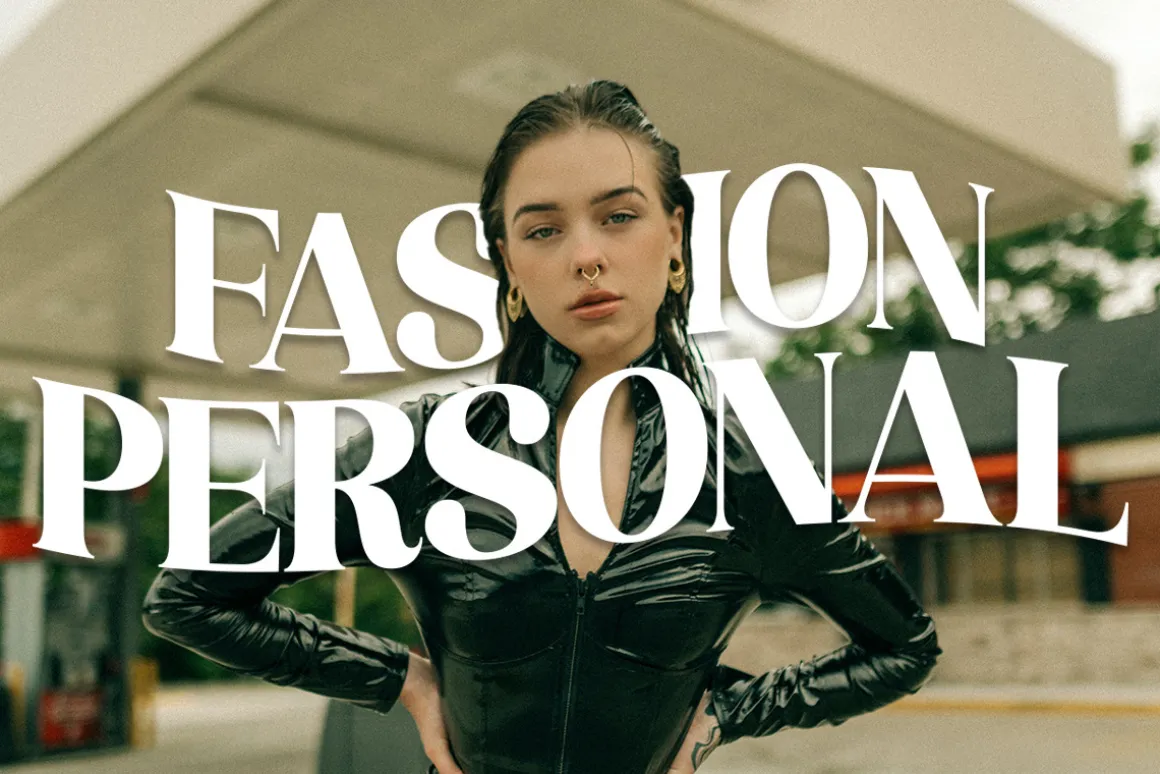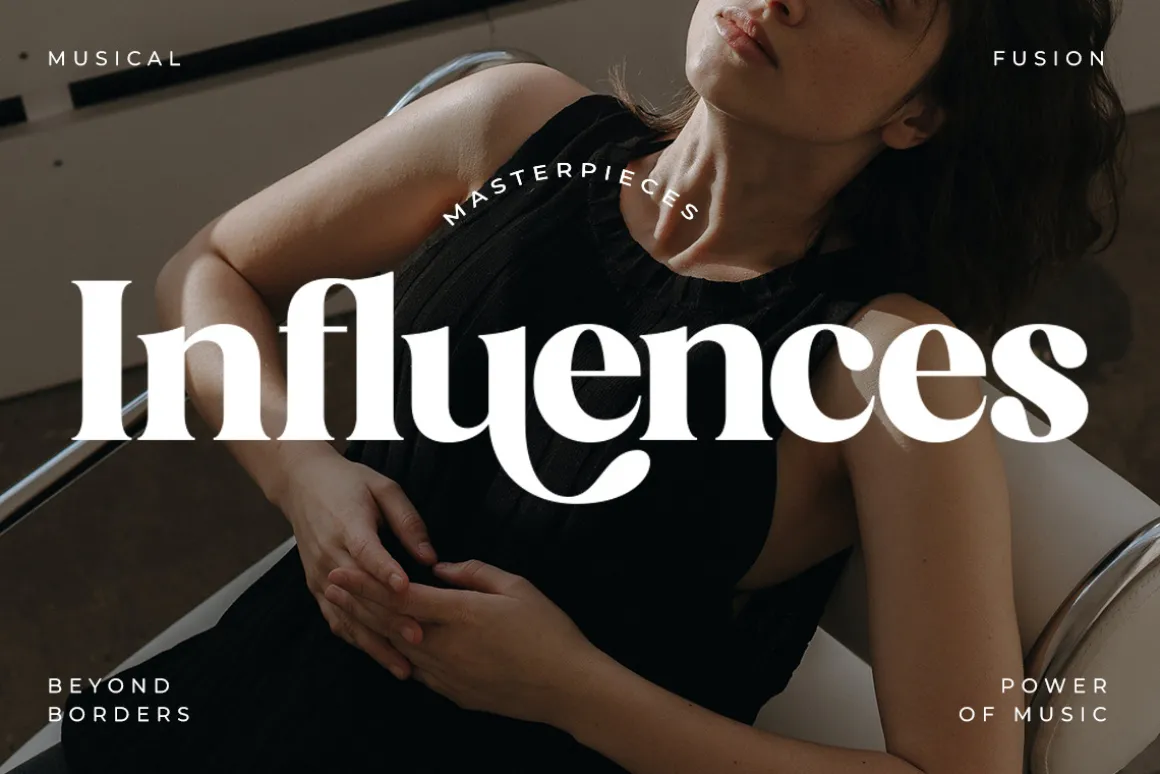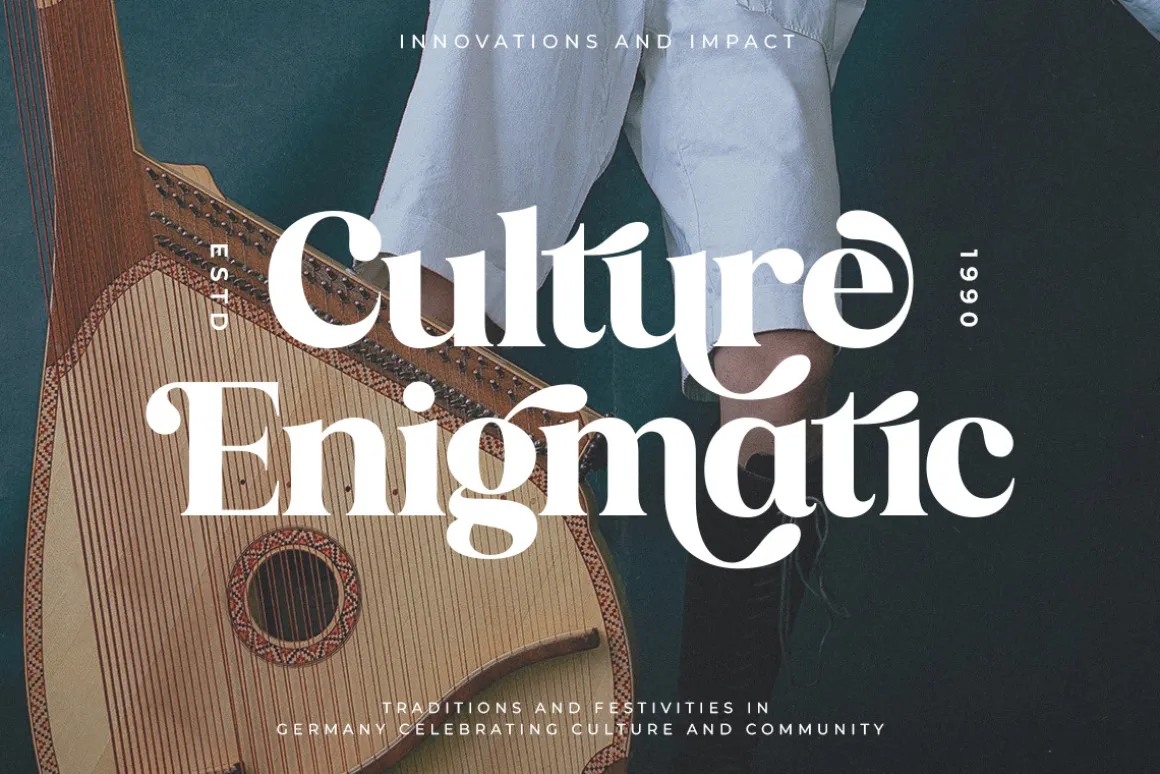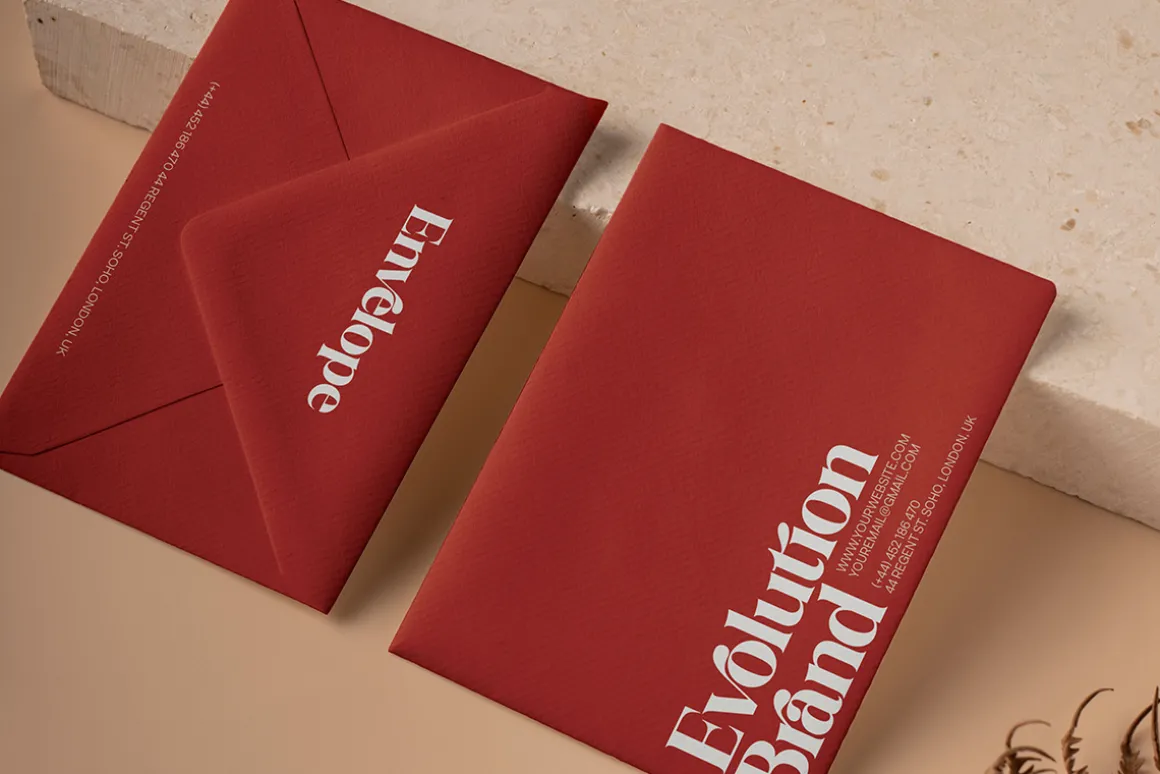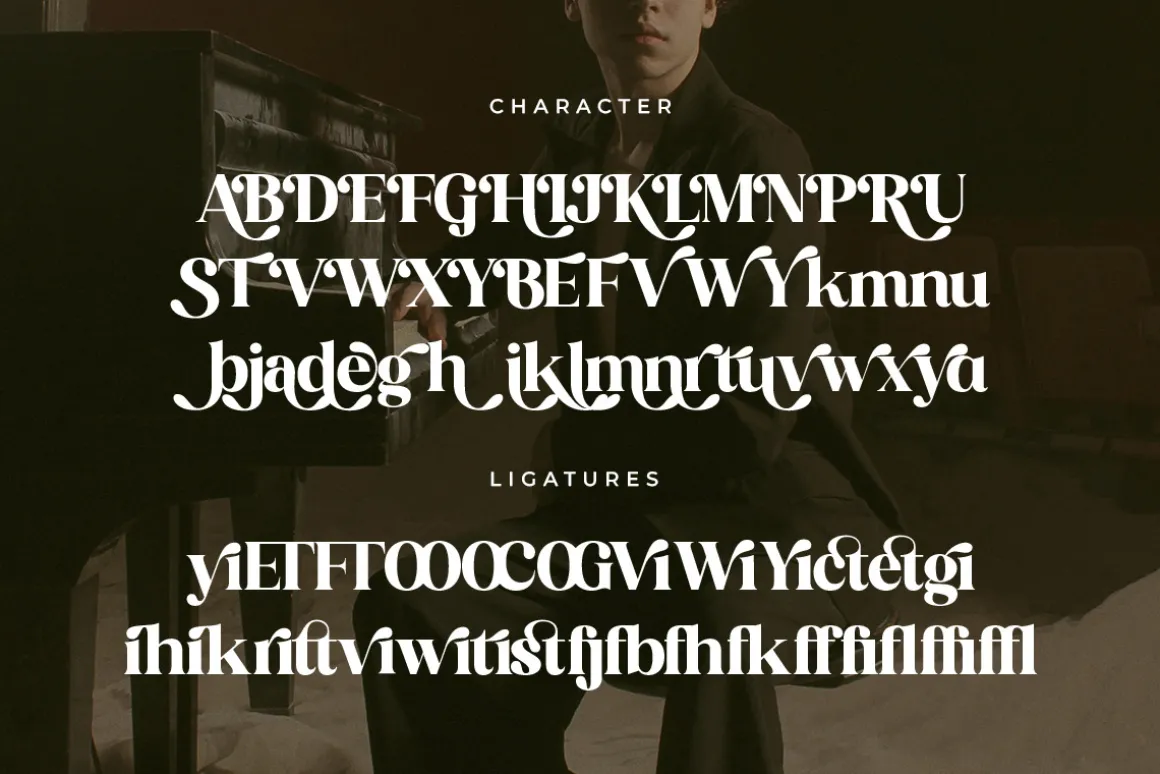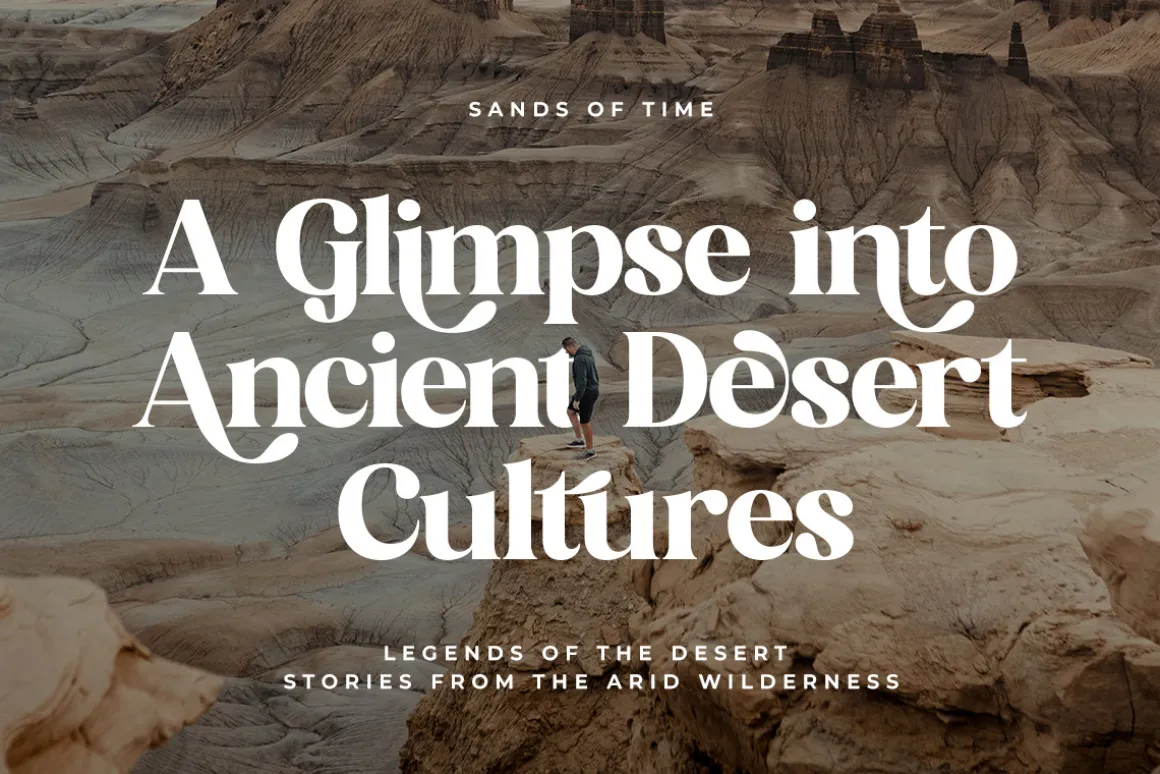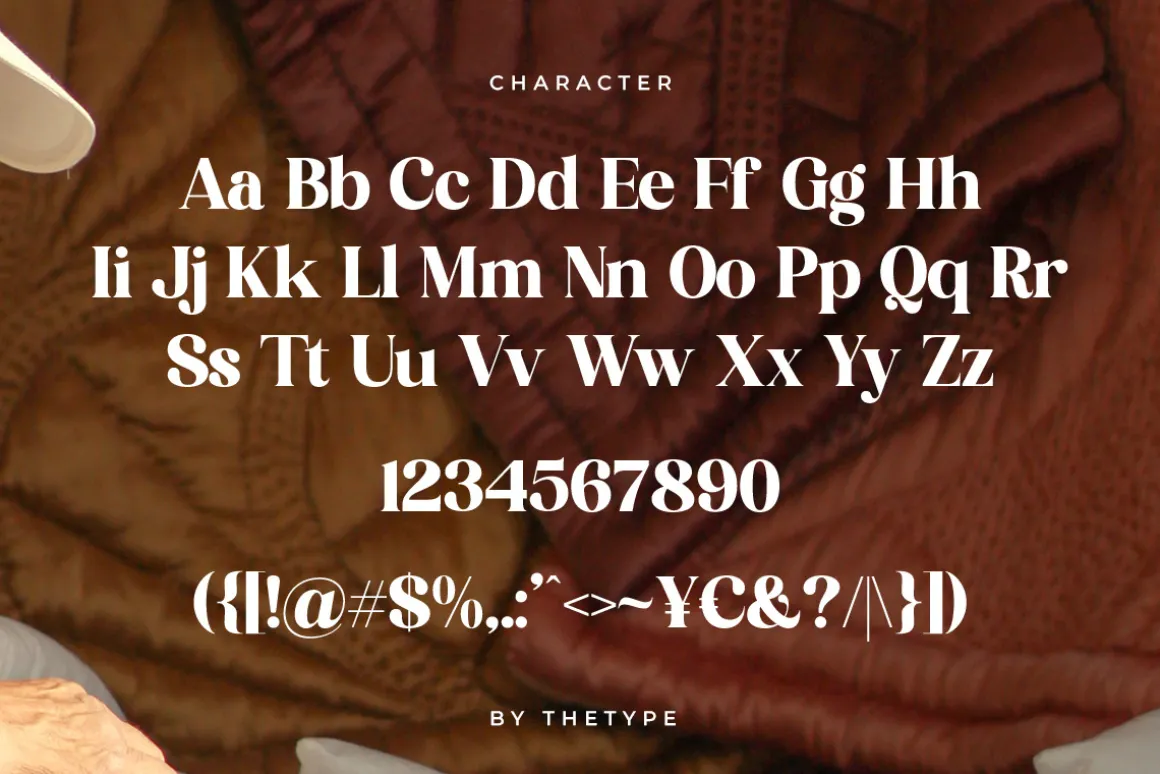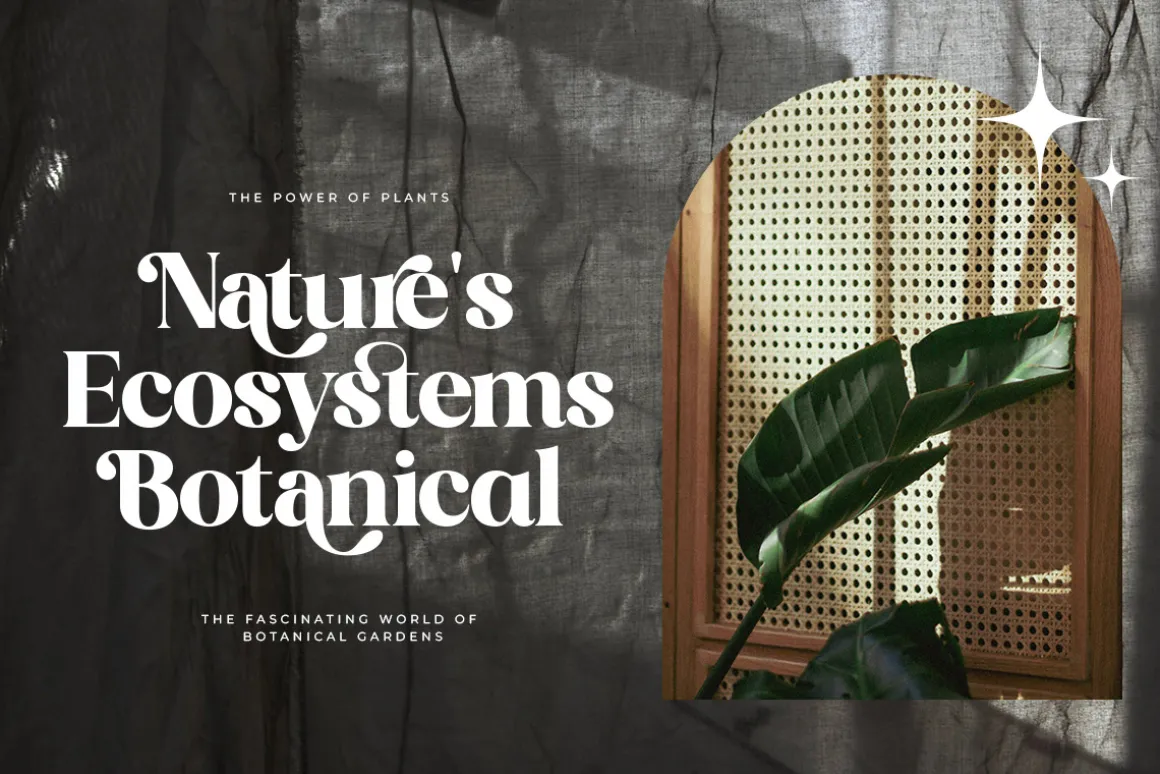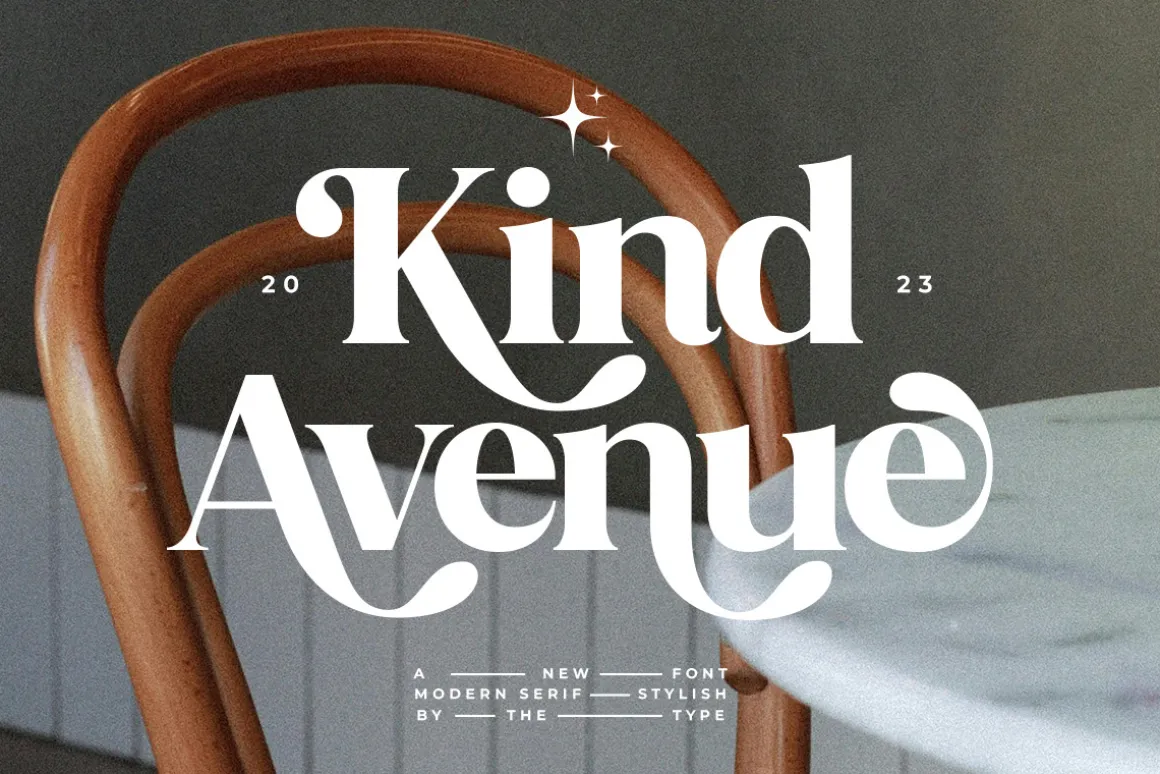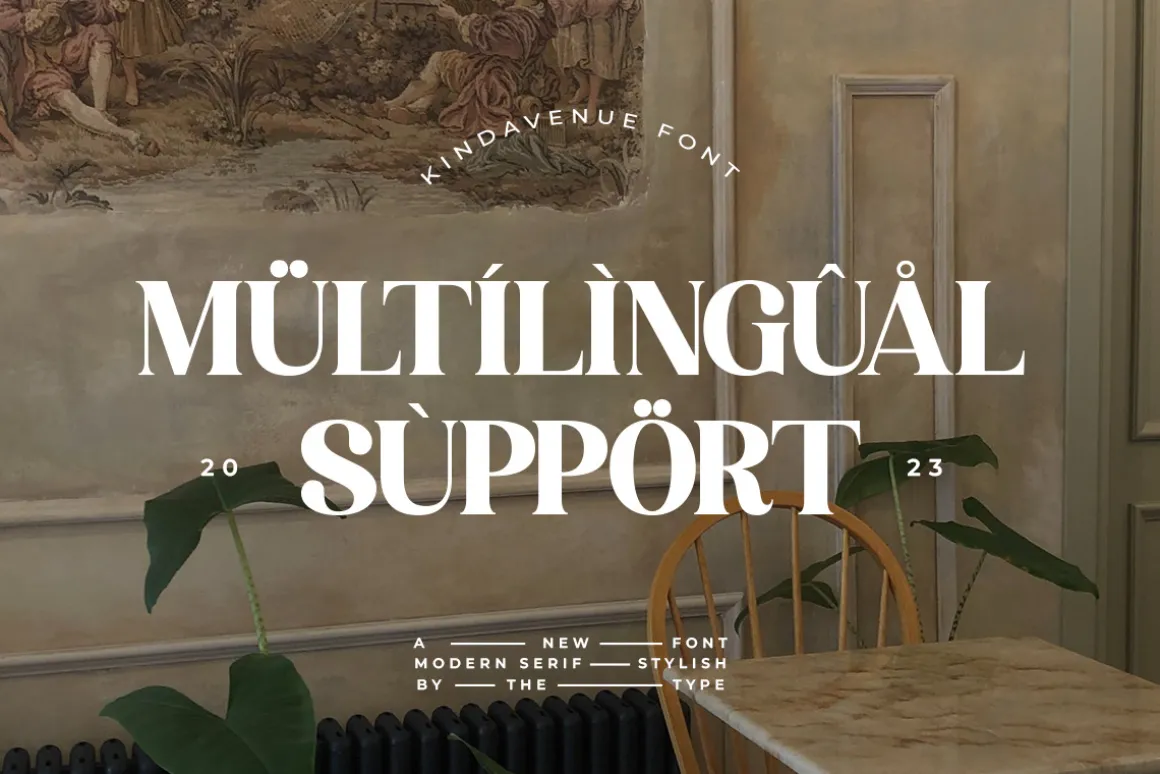
Kind Avenue – a Stylish Retro Font. This font can look more retro (conservative) serif, which is perfect for texts. So same he can be more expressive, playing and more modern with alternative substitutes and ligatures, try to play with them and you will get the uniqueness in your project.
Following multilingual support: ÀÁÂÃÄÅĄÇĆÈÉÊËĘÌÍÎÏÐÑŃŁÒÓÔÕÖØÙÚÛÜŚŠŸÝŹŻŽßàáâãäåçèéêëìíîïðñòóôõöøùúûüýÿąćęłńśšźżž
- Alternates
- Ligature
- Multilingual